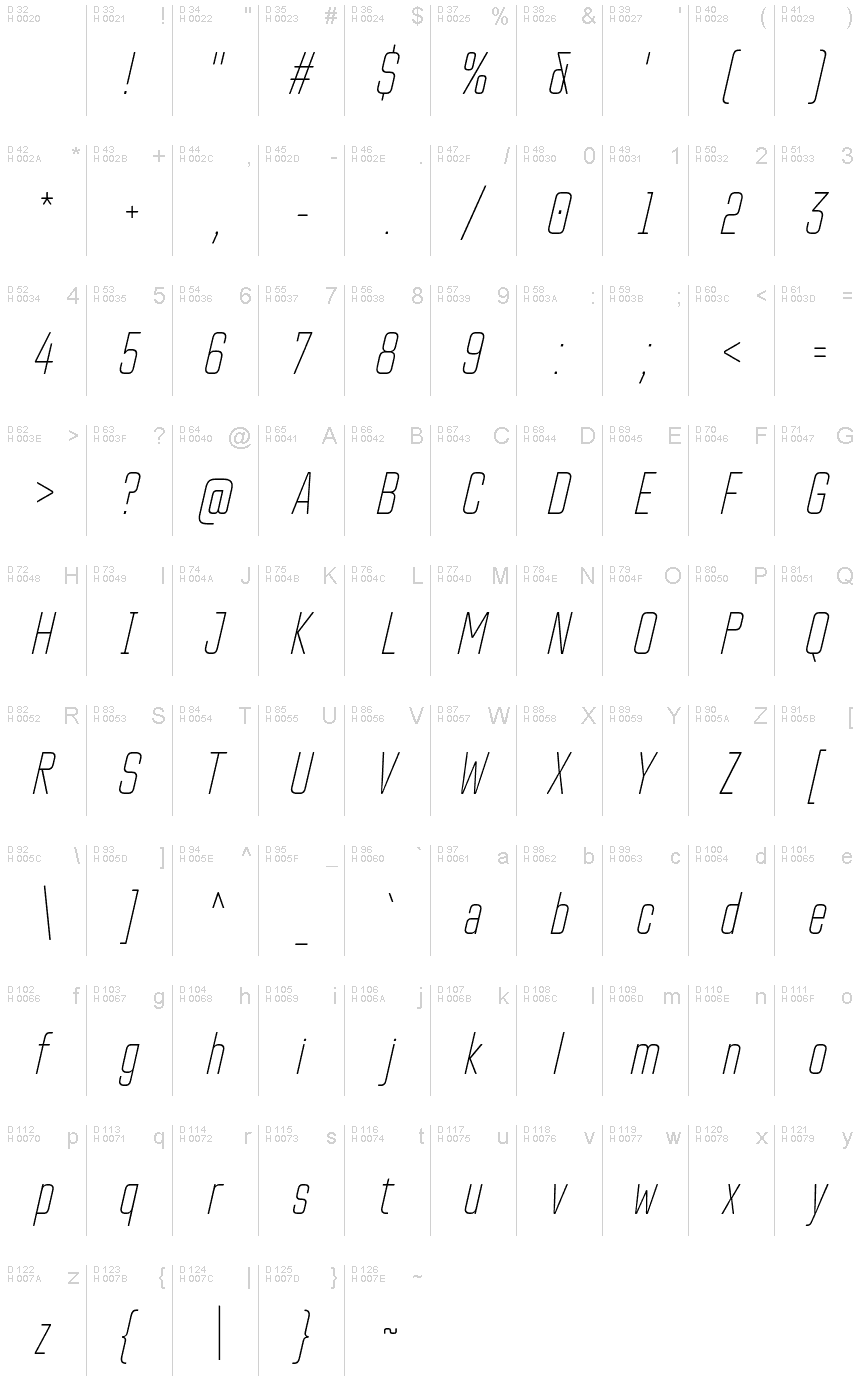
TT Lakes Neue Trl Cmd Th It
TT Lakes Neue Cmd Th It is a stunning ultra-light and ultra-condensed sans serif font from the renowned TypeType Foundry. Its sleek and modern design makes it perfect for projects that require a clean, minimalist aesthetic, such as tech websites, fashion magazines, or even high-end product packaging. The condensed width allows for more text to fit in tight spaces without compromising legibility, making it a popular choice for editorial layouts and signage. With its versatility and refined style, TT Lakes Neue Cmd Th It is sure to elevate any project with its sophisticated charm.